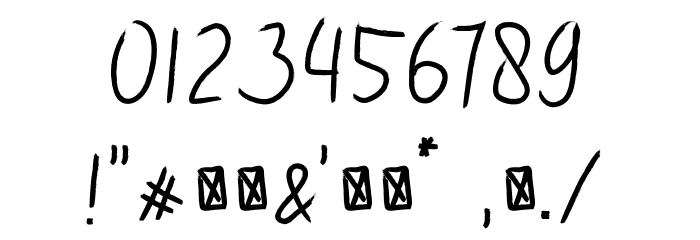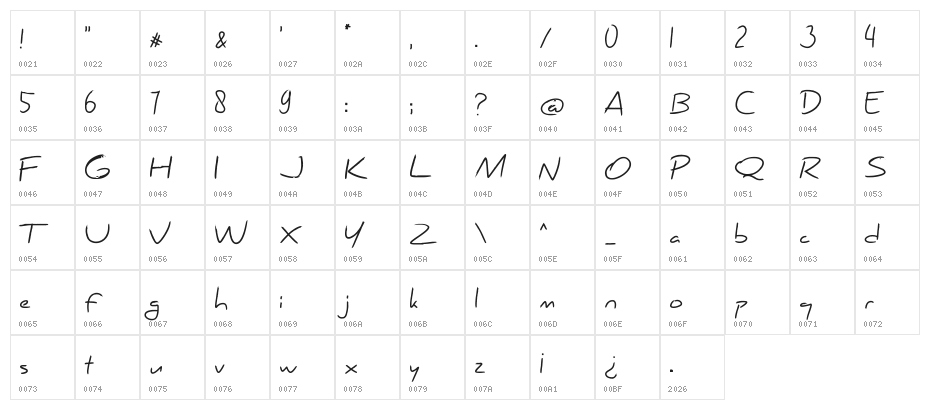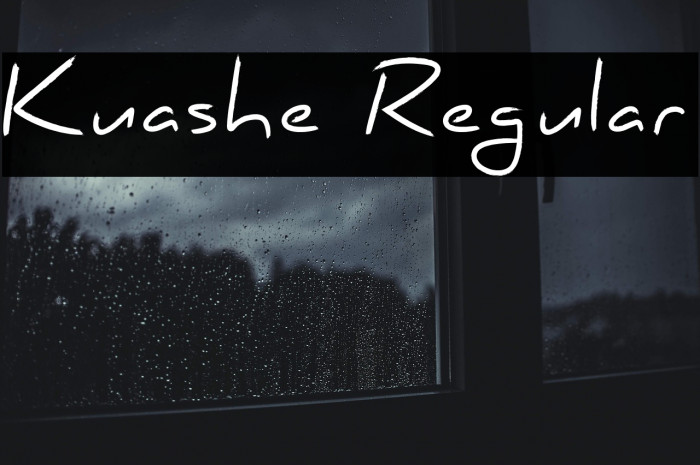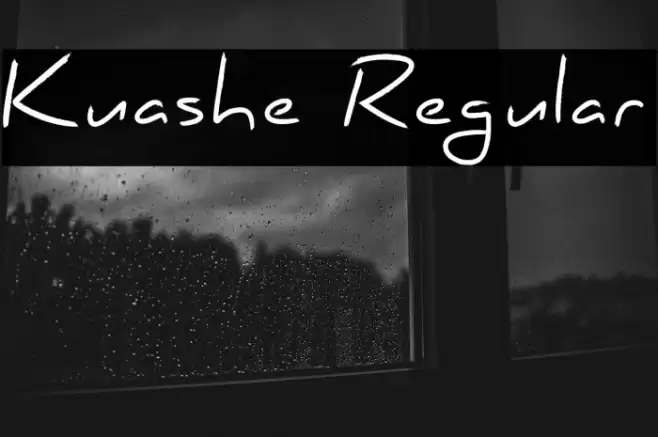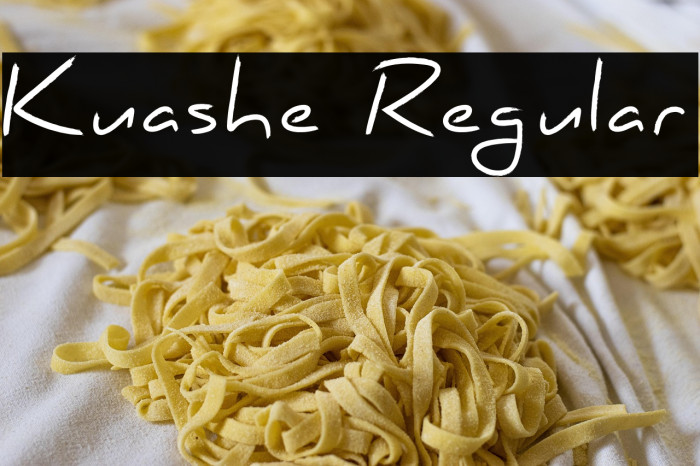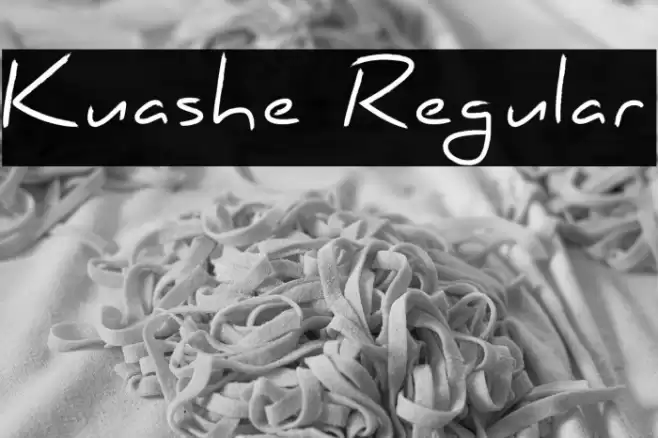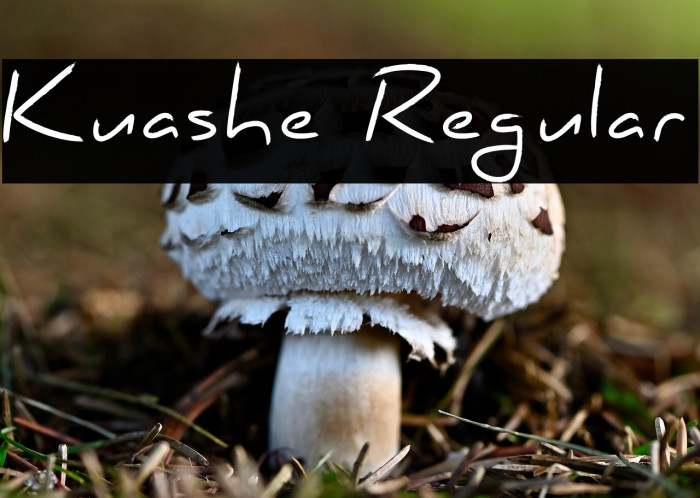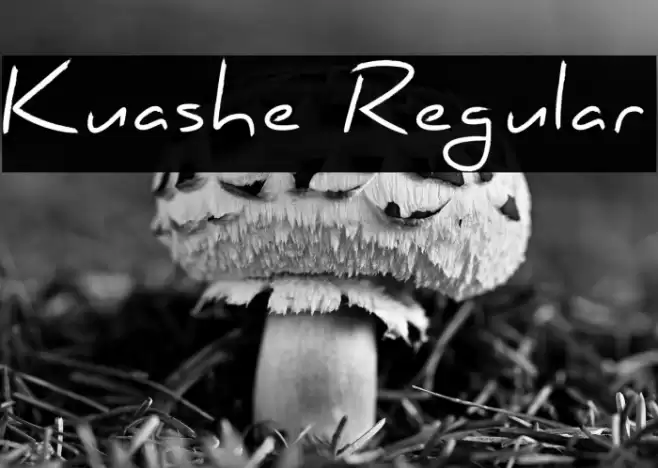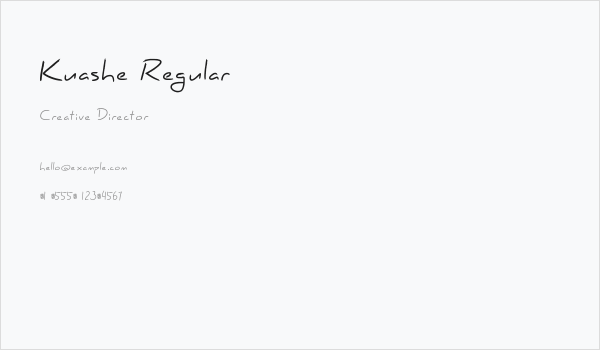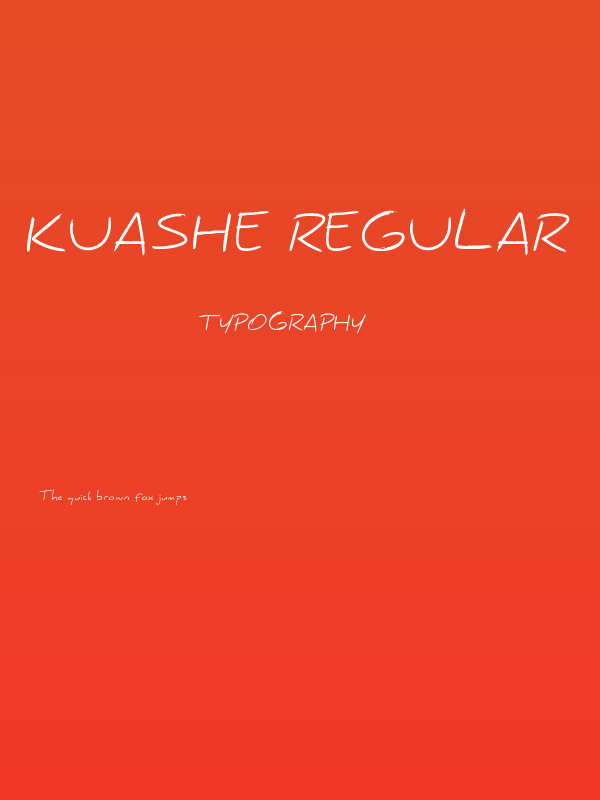
Kuashe Regular Font
Kuashe Regular Description
This font features a casual, handwritten style that exudes a sense of informality and approachability. The characters are slightly slanted, giving them a dynamic and lively appearance. The strokes are uneven, mimicking the natural flow of handwriting, which adds a personal touch. The uppercase letters are bold and prominent, while the lowercase letters maintain a consistent flow, enhancing readability. The numerals are clear and distinct, matching the overall style of the alphabet. Special characters are included, maintaining the same handwritten aesthetic. This font is versatile, suitable for projects that require a personal or informal tone.
| Overall Style | Casual, Informal |
| Use Case | Headlines, Invitations, Personal notes |
| Proposed Projects | Ideal for personal notes, invitations, casual branding, and creative projects that require a personal touch. |